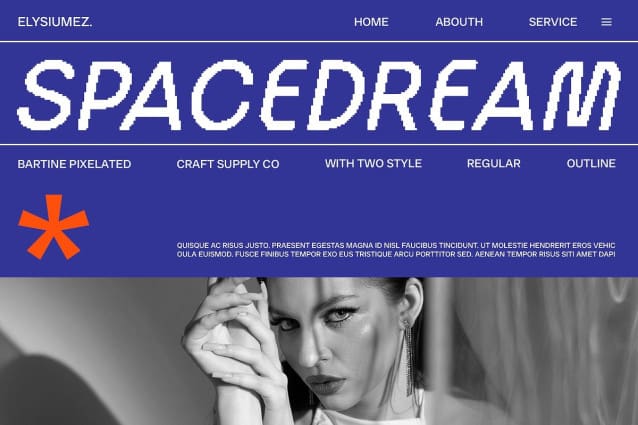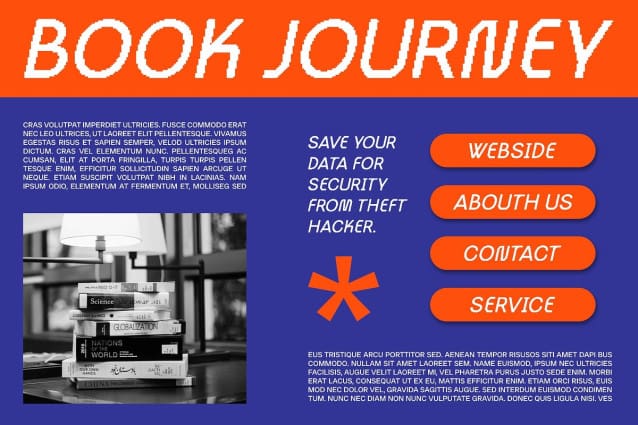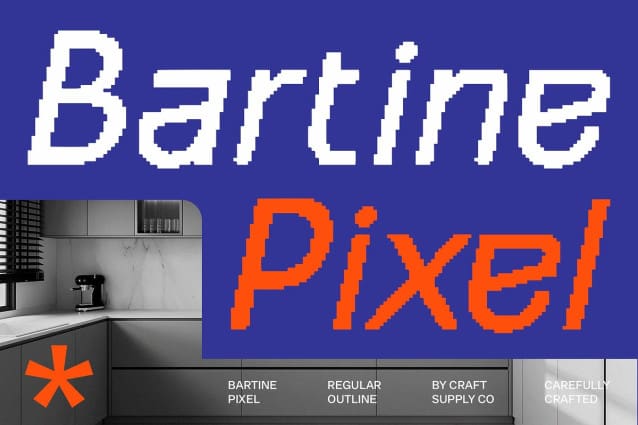
Bartine Pixel Font
Bartine Pixel Font is a modern sans-serif font with a futuristic or tech style, featuring a clean, geometric design that incorporates advanced technology elements like pixel effects. The pixel effect adds an intriguing digital dimension, creating a look suitable for designs aiming to highlight modern aesthetics and technology.
With its clean lines and pixel effect, Bartine Pixel is ideal for digital designs such as applications, websites, and projects requiring a futuristic and innovative impression. This font ensures your designs stand out with a modern and technologically advanced appeal, making it suitable for various digital applications.
Bartine Pixel enhances designs seeking to emphasize modern aesthetics and technology. Its geometric design and pixel effect create a sleek and innovative look, ensuring your projects convey sophistication and cutting-edge style.
Versatile and visually striking, Bartine Pixel adapts seamlessly to digital and technological projects. Whether used in applications or digital interfaces, this font provides a clean and futuristic appeal that enhances the overall impact of your designs.